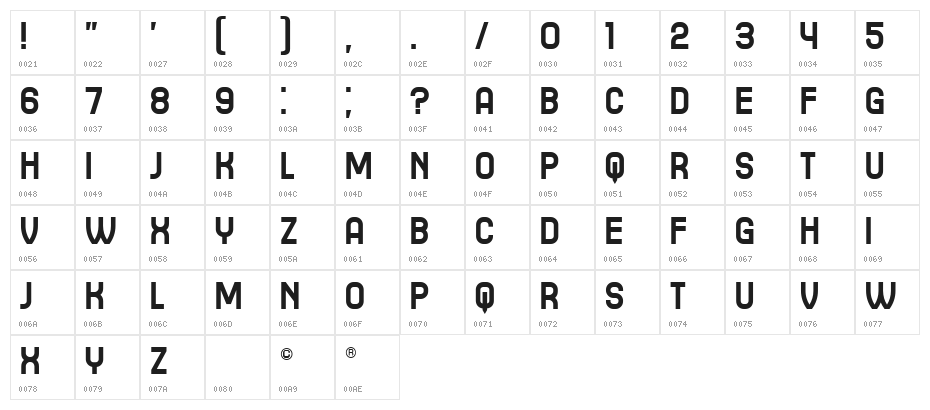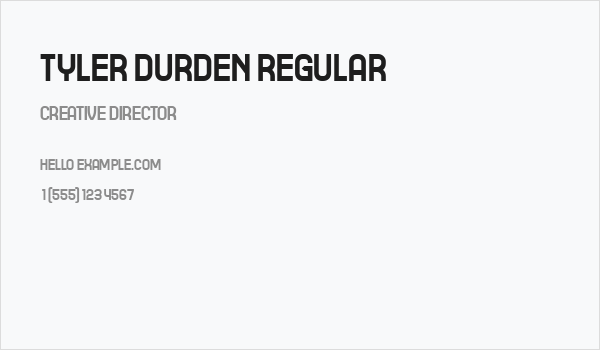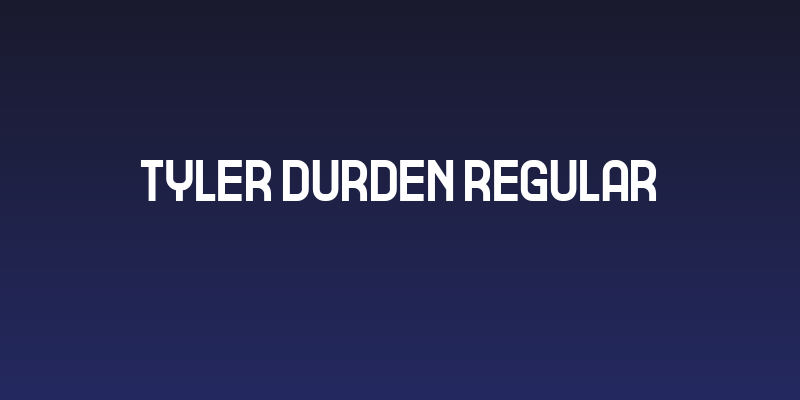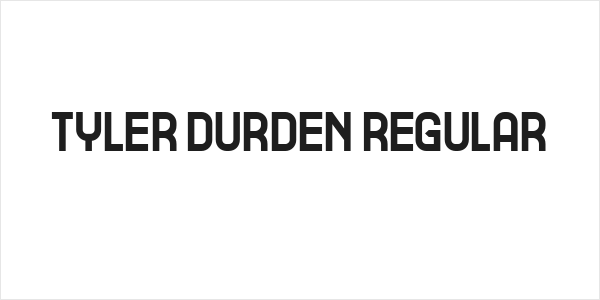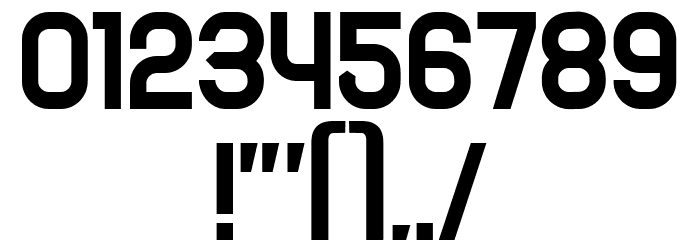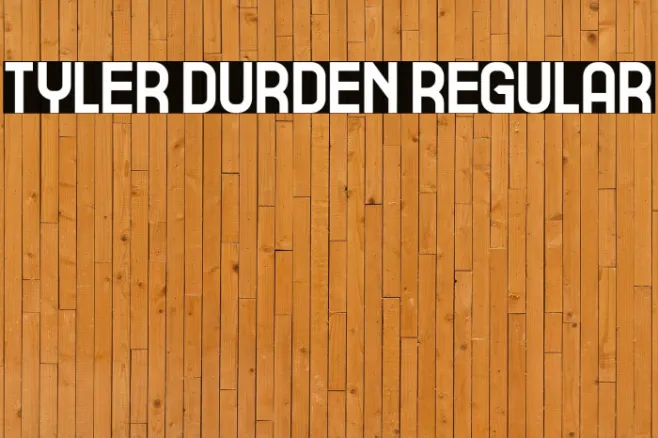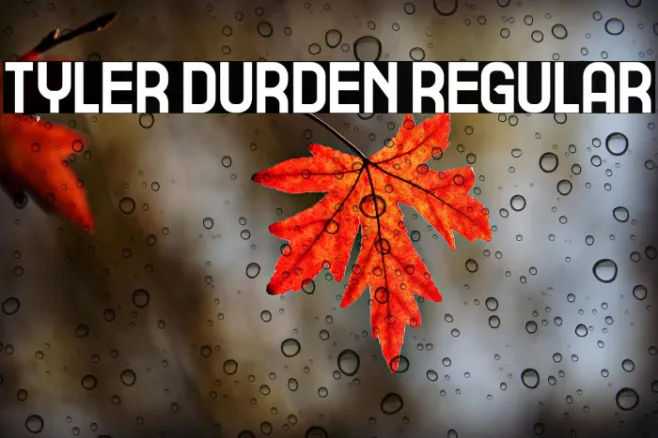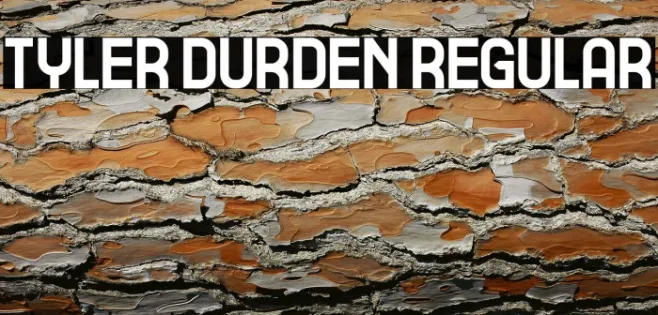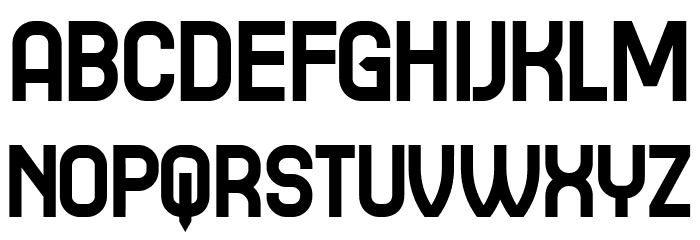
Tyler Durden Regular Font
Tyler Durden Regular Description
This font features a bold and modern design with clean, geometric lines. The uppercase letters are uniform in height, creating a cohesive and structured appearance. The lowercase letters maintain a similar geometric style, ensuring readability and consistency. The numerals are distinct and easy to read, complementing the overall design. Special characters are well-integrated, adding versatility to the font. The style is suitable for contemporary projects that require a strong visual impact.
| Proposed Projects | Ideal for branding, advertising, posters, and digital media where a modern and impactful look is desired. |